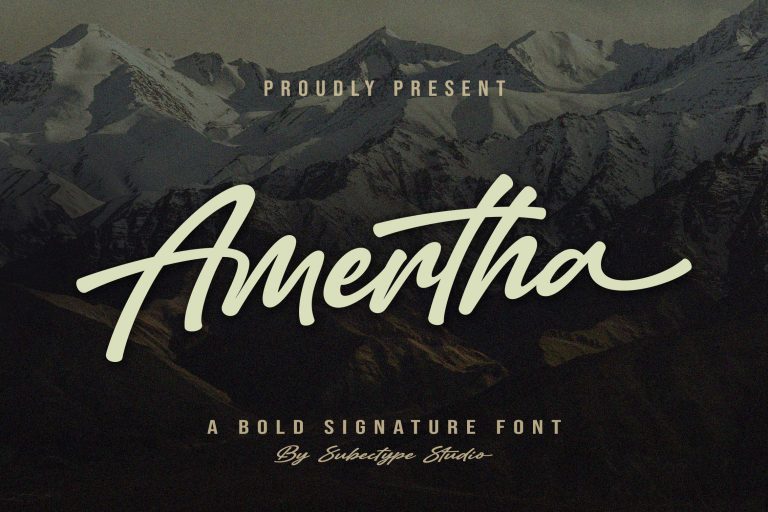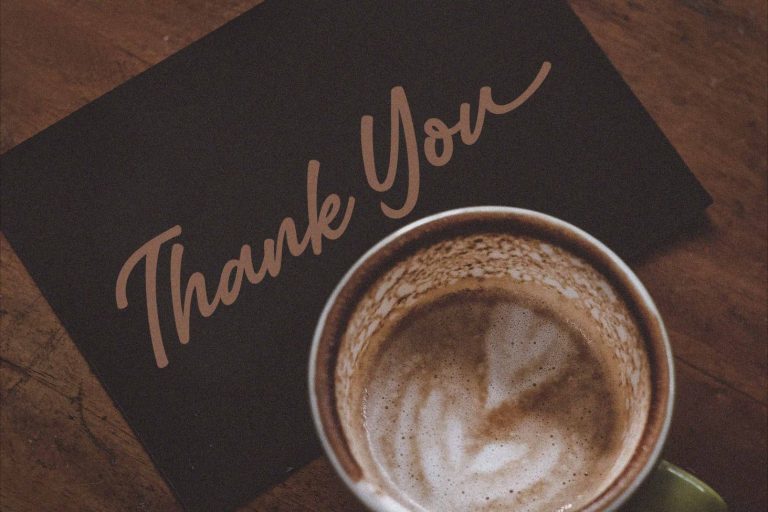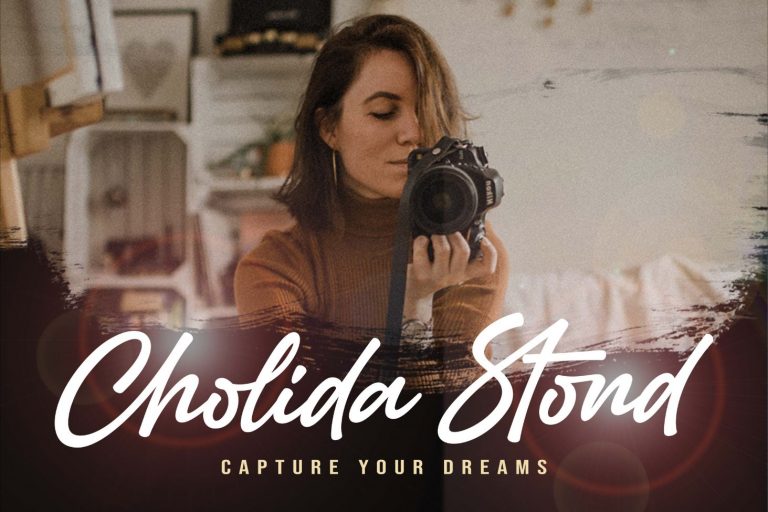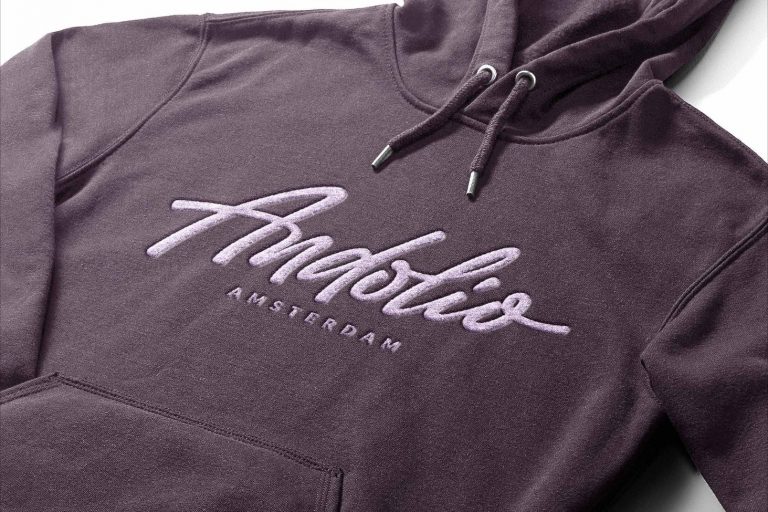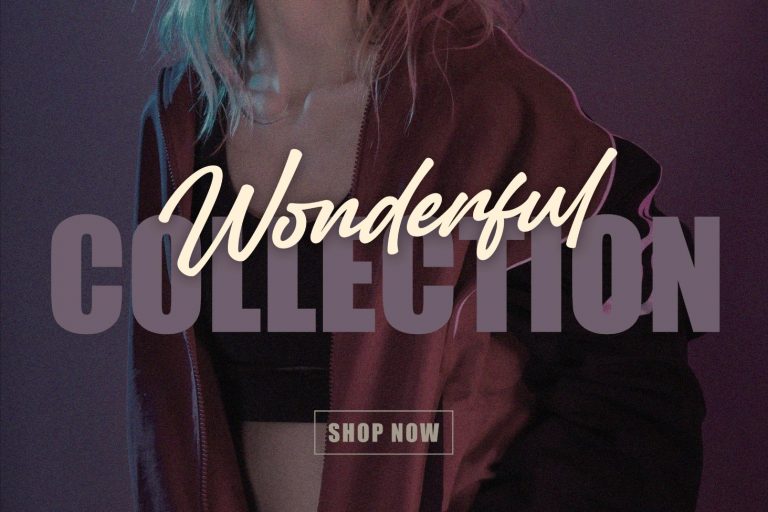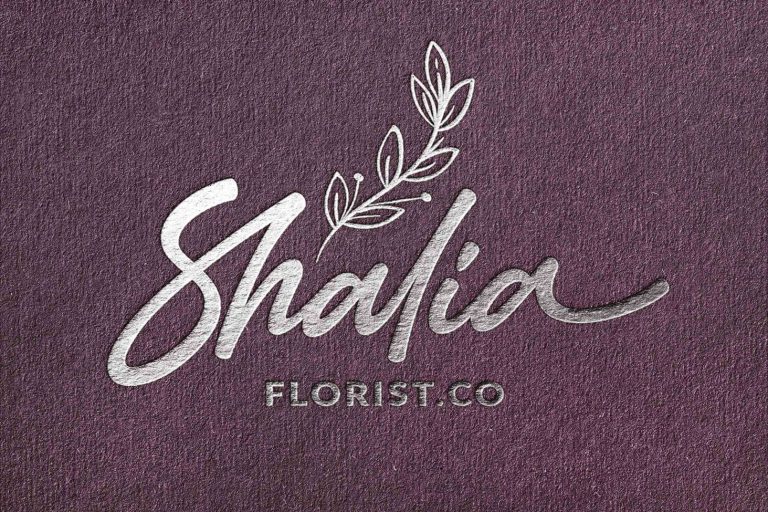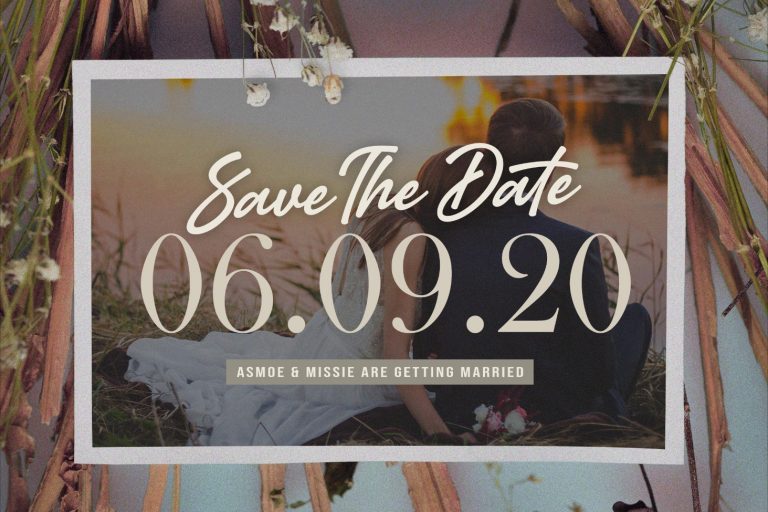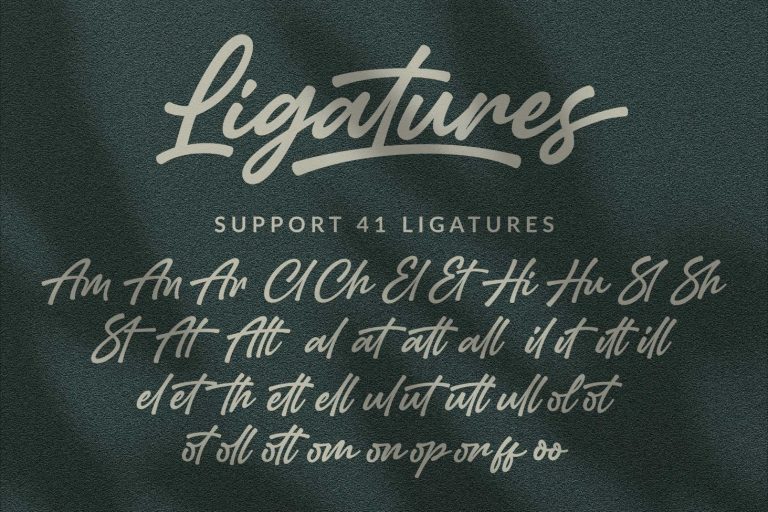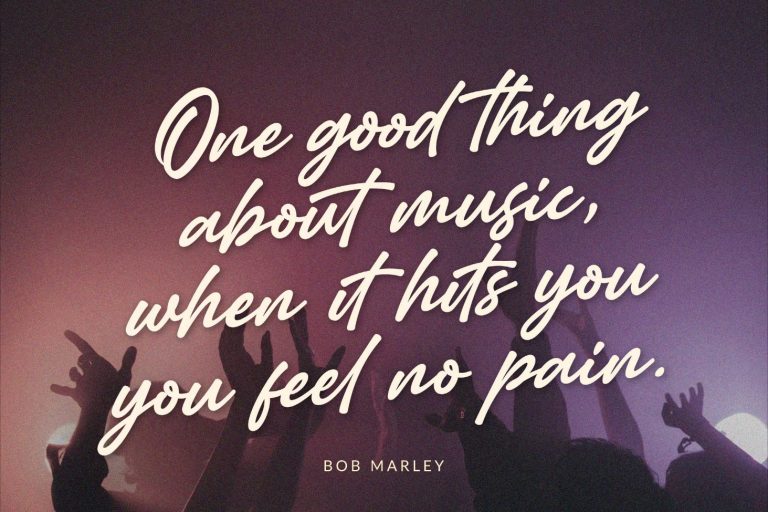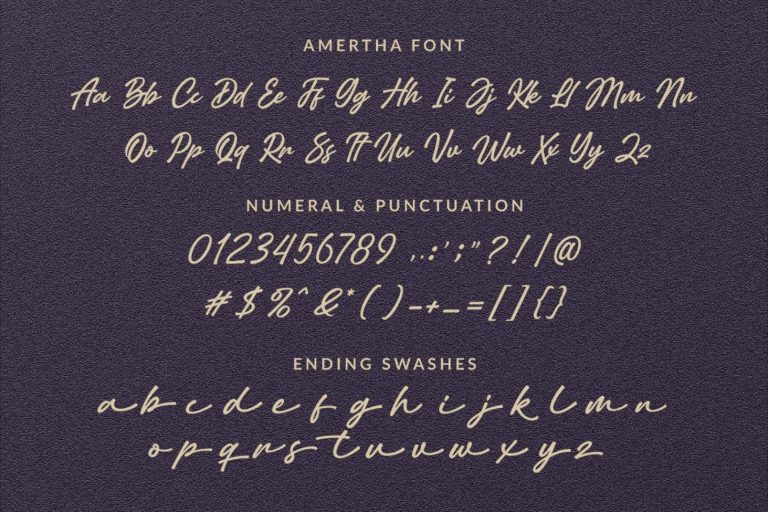
Amertha
‘Amertha’ is a Bold Signature Font script with a natural & stylish flow. This collection of scripts is perfect for personal branding. I Everything from personal branding, photography signature, advertising could benefit from this collection of this bold signature fonts. These typefaces work well for many different aesthetics. They work well with something like ‘cosmetics’ for example but would also work well with Liquor Labels, Signage, & any type of signature-styled logo.
it has an extensive lingual support, covering European and Asian Latin scripts. The font contains all characters you’ll ever need, including all punctuation and numbers.